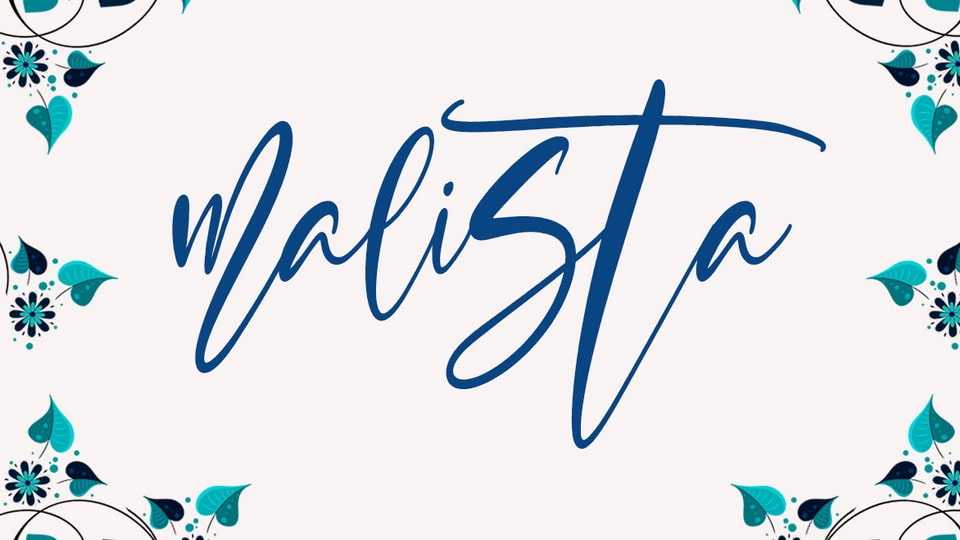
Download Malista font, a modern script typface with handwriting, decorative characters and a dancing baseline! It is perfect for use as blog headers, t-shirts, and for weddings.